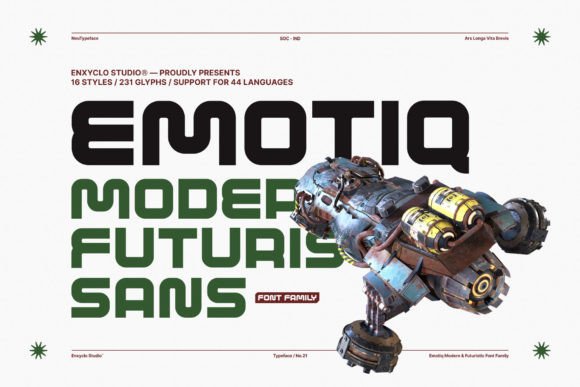
Introducing Emotiq Font: The Gateway to a Bold and Futuristic Design Realm
In a world where creativity knows no bounds, the Emotiq Font emerges as a beacon of innovation, beckoning you to embark on a journey of bold expression and futuristic aesthetics. This captivating sans serif font, meticulously crafted by Enxyclo, transcends the ordinary, propelling your designs into a realm of boundless possibilities.
Visualize your words transformed into striking statements, radiating an aura of modernity and intrigue. Emotiq's sharp edges and clean lines command attention, effortlessly elevating your designs to new heights of sophistication. Unleash your imagination and let Emotiq's boldness ignite a fire within your creative soul.
With Emotiq as your creative ally, you'll discover a font family that defies convention. Its versatility knows no limits, adapting seamlessly to diverse projects, from eye-catching logos and branding materials to captivating social media posts and website designs. Dive into the depths of Emotiq's character set and uncover a treasure trove of glyphs, each meticulously designed to bring your vision to life.
Embark on a journey where your designs take center stage, exuding an undeniable aura of confidence and innovation. Emotiq's bold presence demands attention, leaving an indelible mark on the minds of your audience. Prepare to witness the transformation as your creations morph into captivating masterpieces, captivating hearts and minds with their striking appeal.
Let Emotiq be your muse, inspiring you to break free from creative boundaries and embrace a world where boldness reigns supreme. Experience the thrill of crafting designs that resonate with your audience, leaving them captivated by the sheer brilliance of your artistic expression.
Welcome to the Emotiq revolution, where fonts transcend their traditional role and become catalysts for innovation. Ignite your passion, embrace the future, and let Emotiq guide you on an extraordinary design adventure.